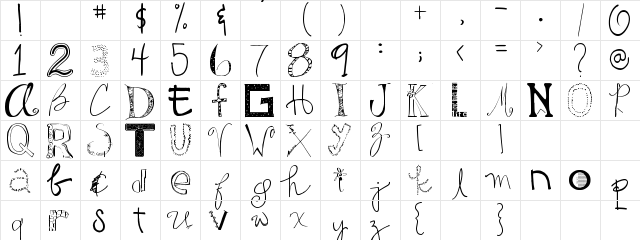
2Peas GG Font Regular
| Foundry | Two Peas in a Bucket |
| Designer | Garden Girls |
Design Context for 2Peas GG Font Typeface
2Peas GG Font is a composed and adaptable typeface that performs quietly and consistently across a wide range of design contexts.